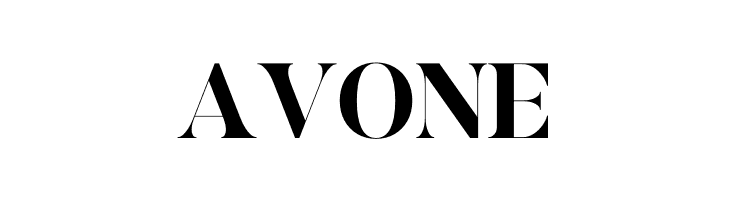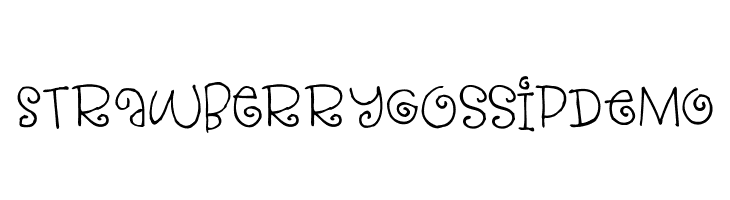
A bold, high-contrast serif font with elegant and dramatic features.
A bold, italic font with a zigzag pattern, offering a dynamic and modern look.
A bold, decorative font with intricate, swirling embellishments.
A playful, hand-drawn font with whimsical swirls and curls.
A bold, expressive handwritten font with a playful, dynamic style.
An elegant italic serif font with smooth curves and a classic yet modern appeal.
A playful, whimsical handwritten font with a casual and lively style.